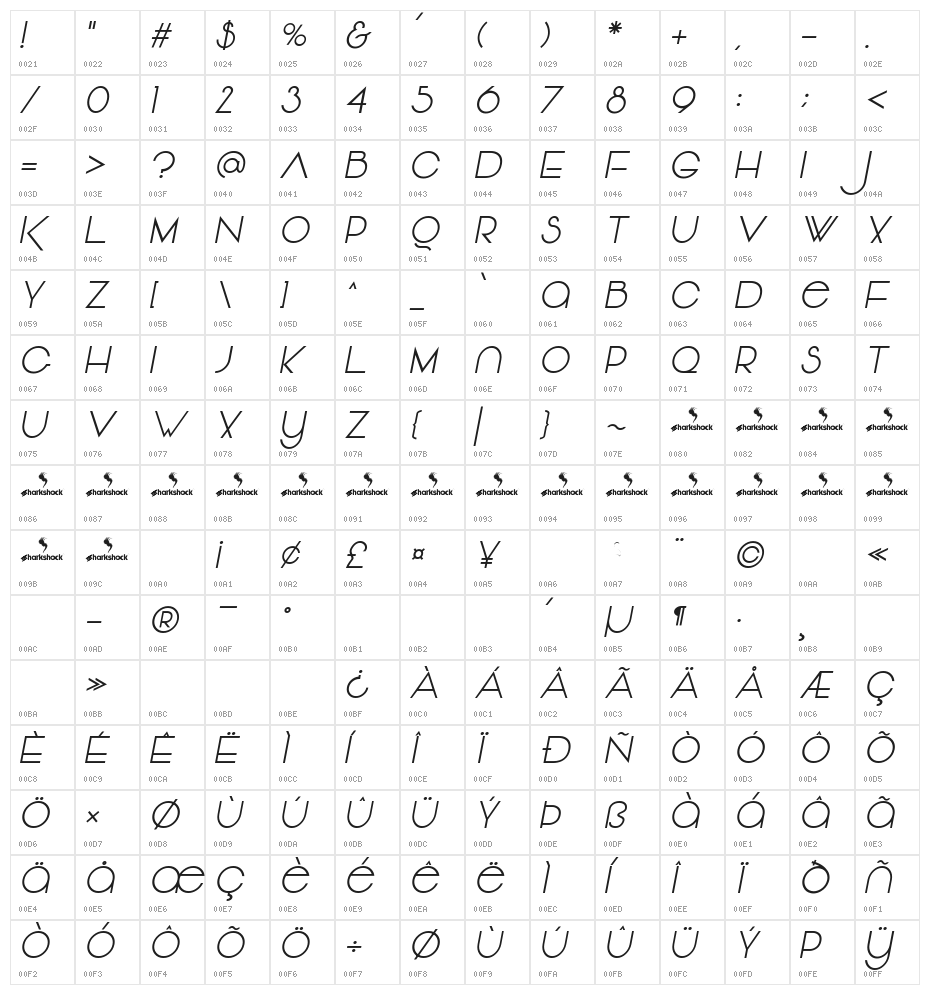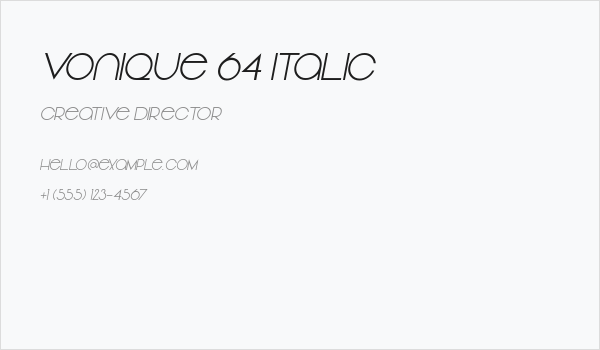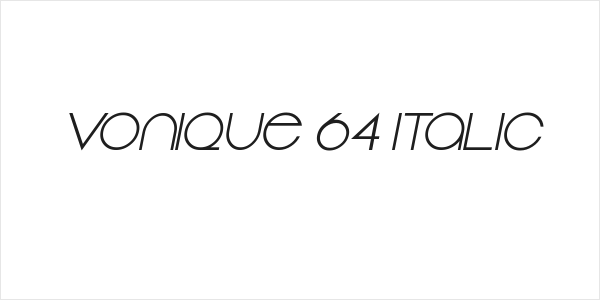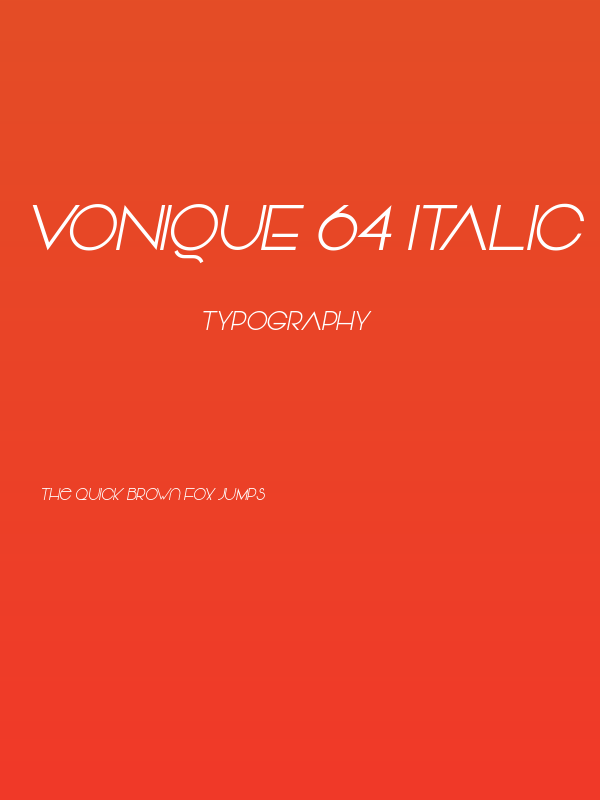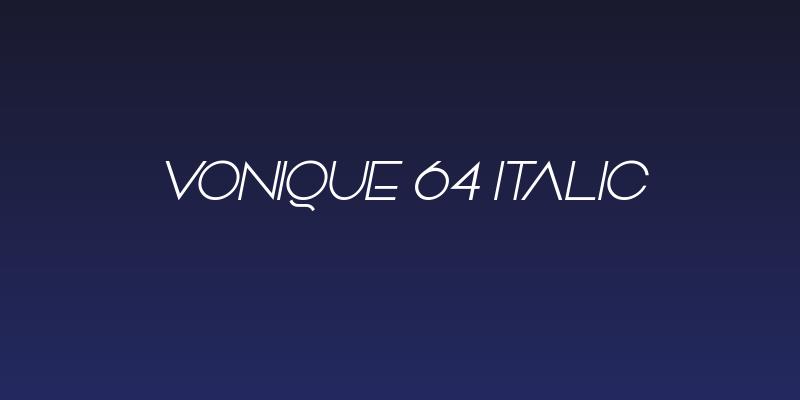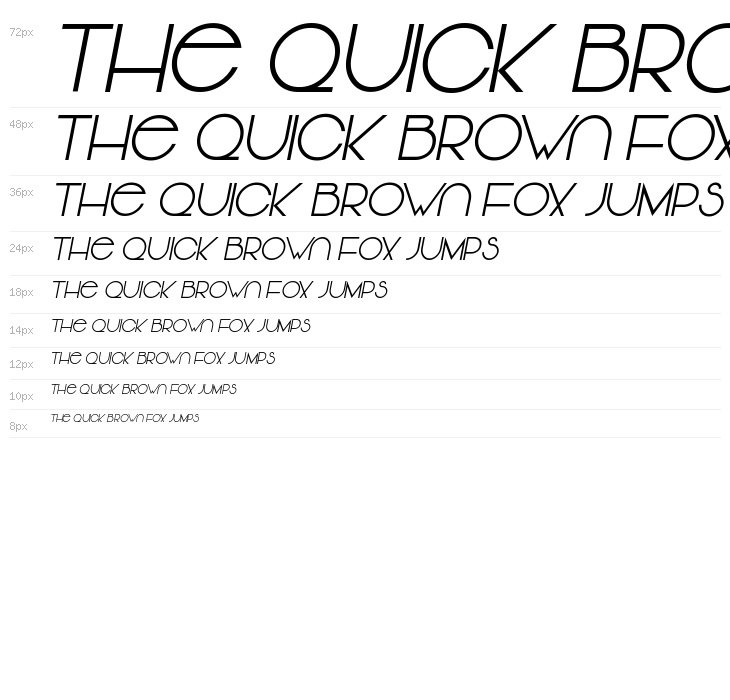
Vonique 64 Italic Font
Vonique 64 Italic Description
This font exhibits a sleek, modern aesthetic with a distinct italic slant, giving it a dynamic and forward-moving appearance. The characters are crafted with clean, geometric lines, emphasizing a futuristic style. The uppercase and lowercase letters maintain a consistent design, with smooth curves and sharp angles that create a sense of elegance and sophistication. The numerals are equally stylish, complementing the overall design with their streamlined form. Special characters are integrated seamlessly, maintaining the font's cohesive look. The thin strokes and minimalistic approach make it suitable for contemporary design projects.
| Proposed Projects | Ideal for branding, fashion magazines, tech-related designs, and modern advertising campaigns. |